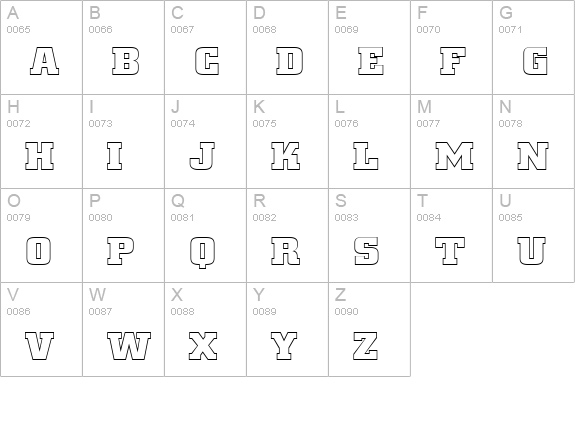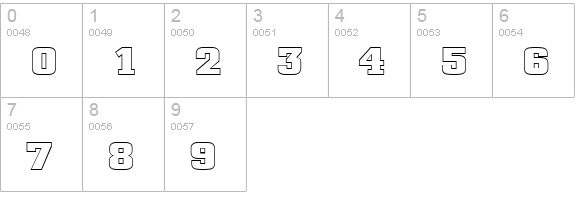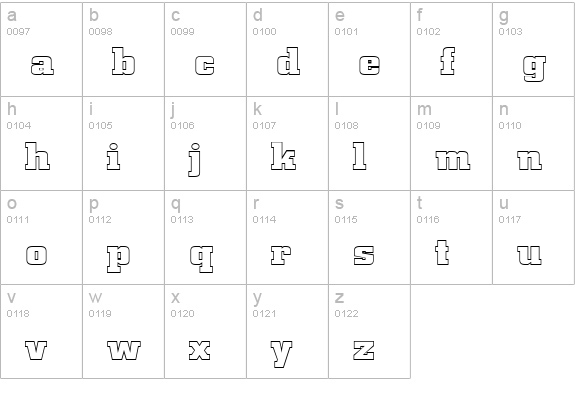
BorghsHollowExtended Normal Font Details
BorghsHollowExtended Normal is the standard, neutral variant in the BorghsHollowExtended typeface family \xE2\x80\x94 well suited to general body text, paragraphs, and standard typographic work.
BorghsHollowExtended Normal font is a versatile and eye-catching typeface that is sure to make a statement in any design project. Its bold and unique letterforms are perfect for adding a touch of modernity and personality to your work. Whether you're designing a poster, logo, or website, BorghsHollowExtended Normal font will help you stand out from the crowd. Best of all, this font is available for free download at FontsMarket.com. So you can add this stylish and contemporary typeface to your font collection without breaking the bank. Don't miss out on the opportunity to enhance your designs with BorghsHollowExtended Normal font today!